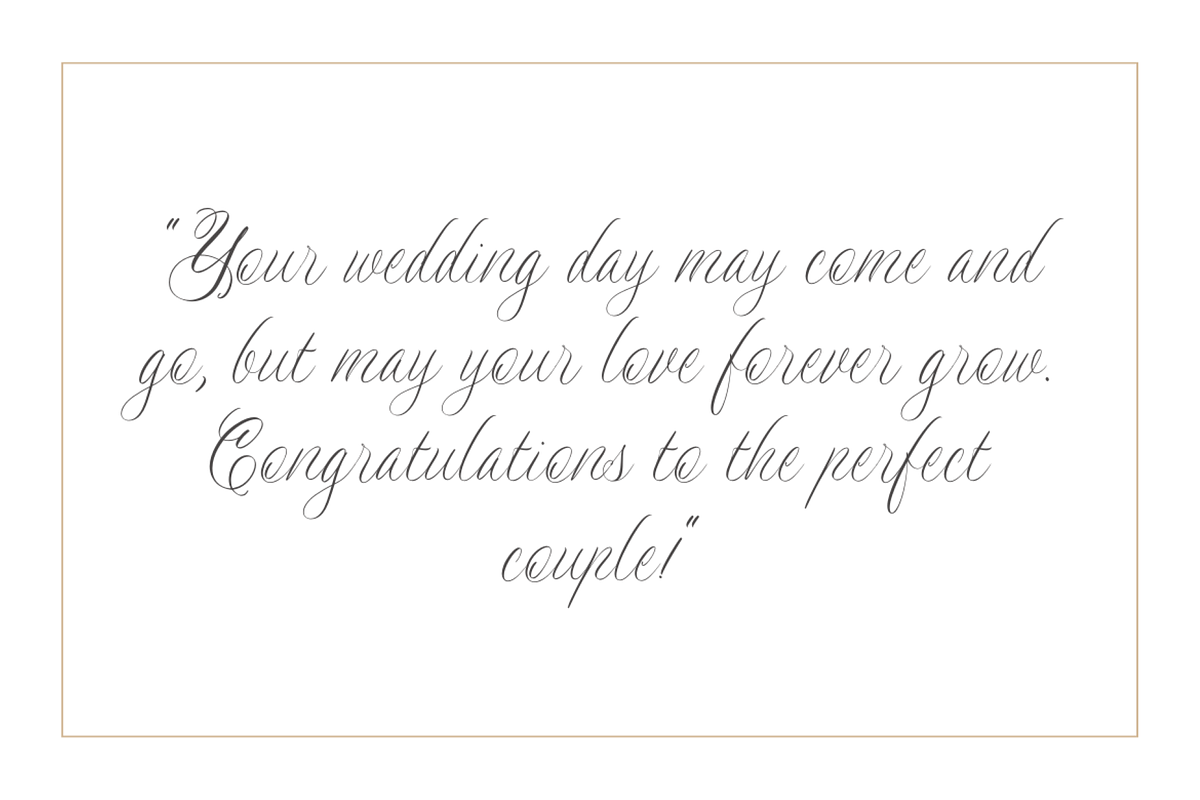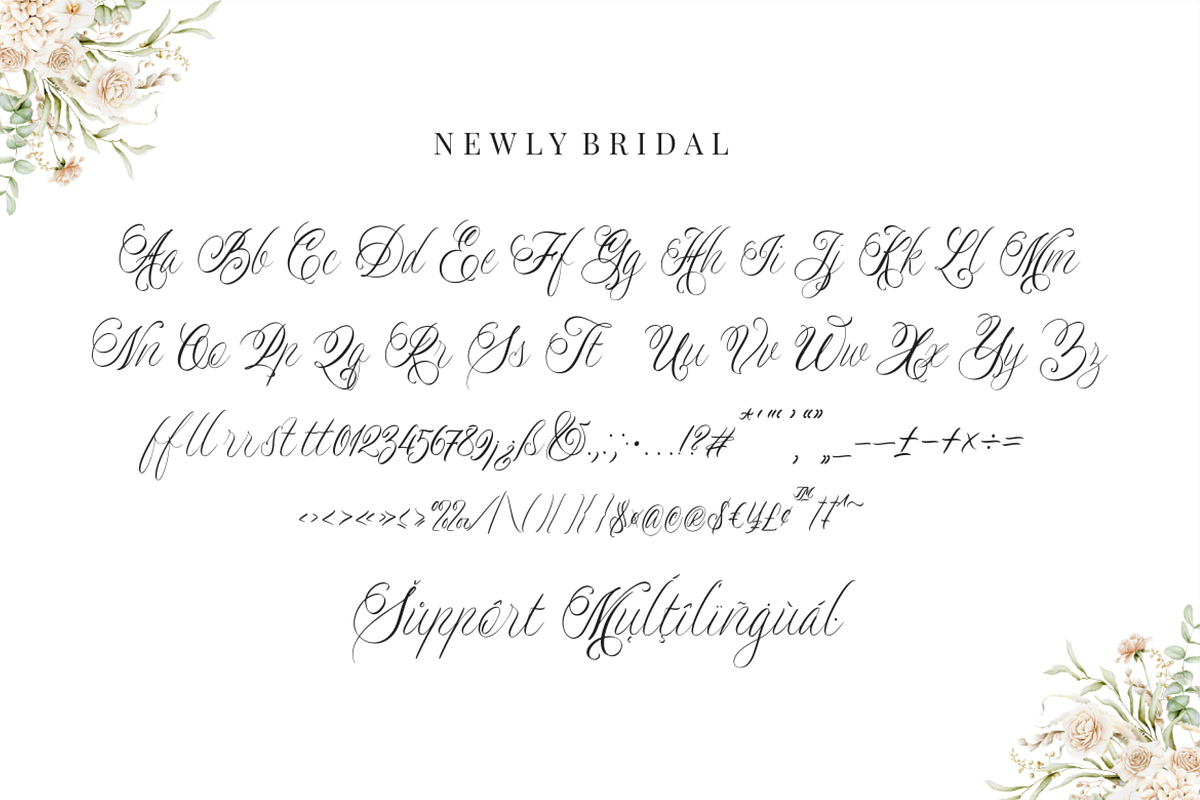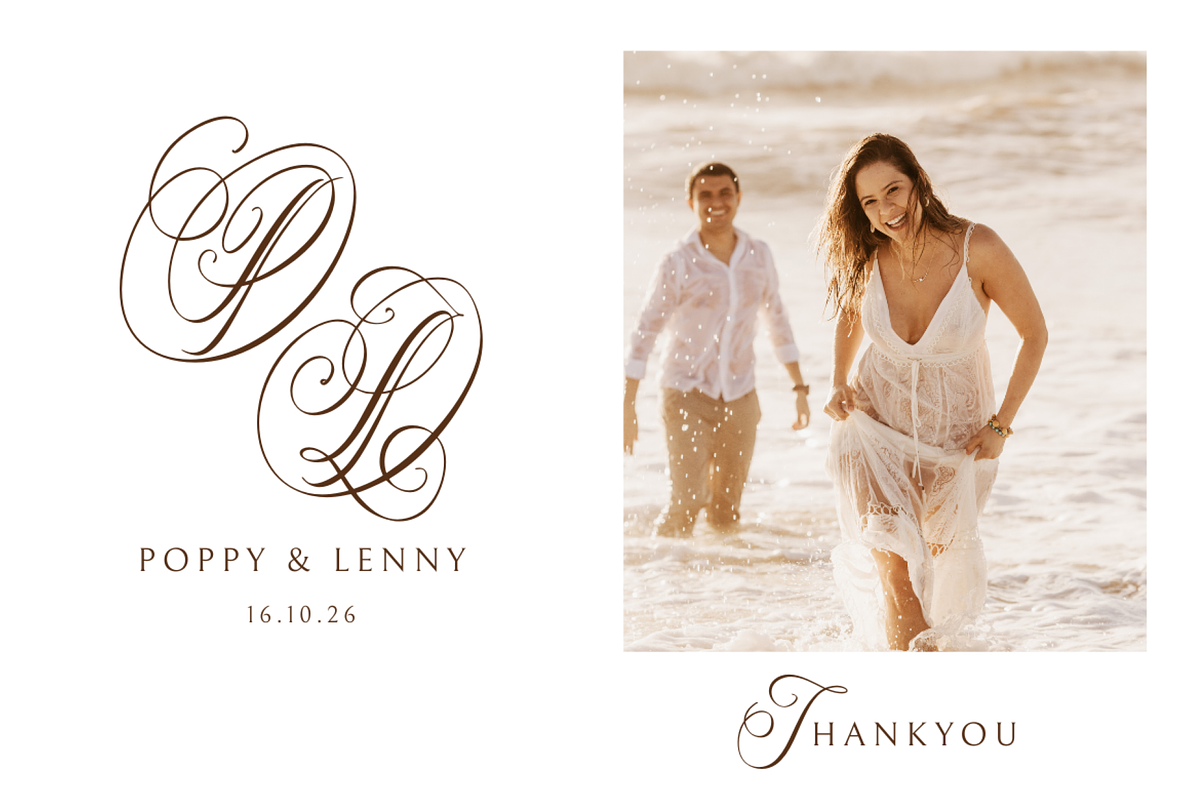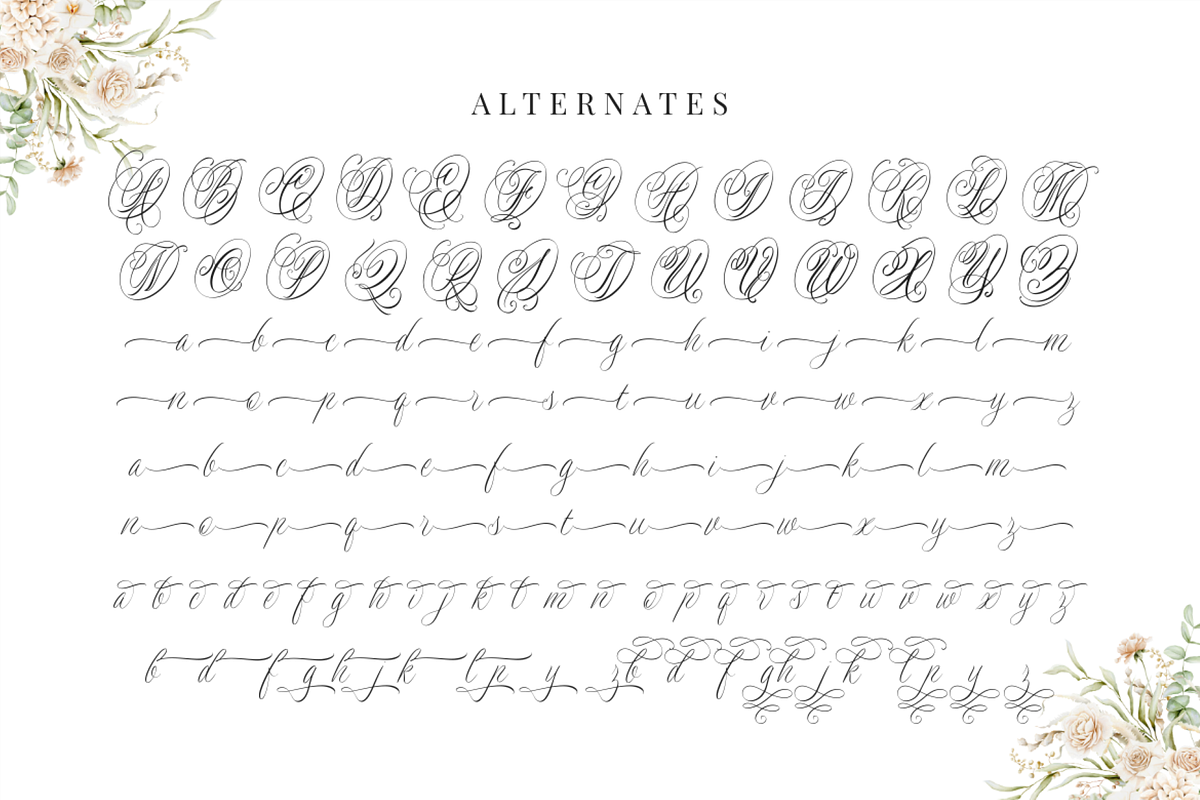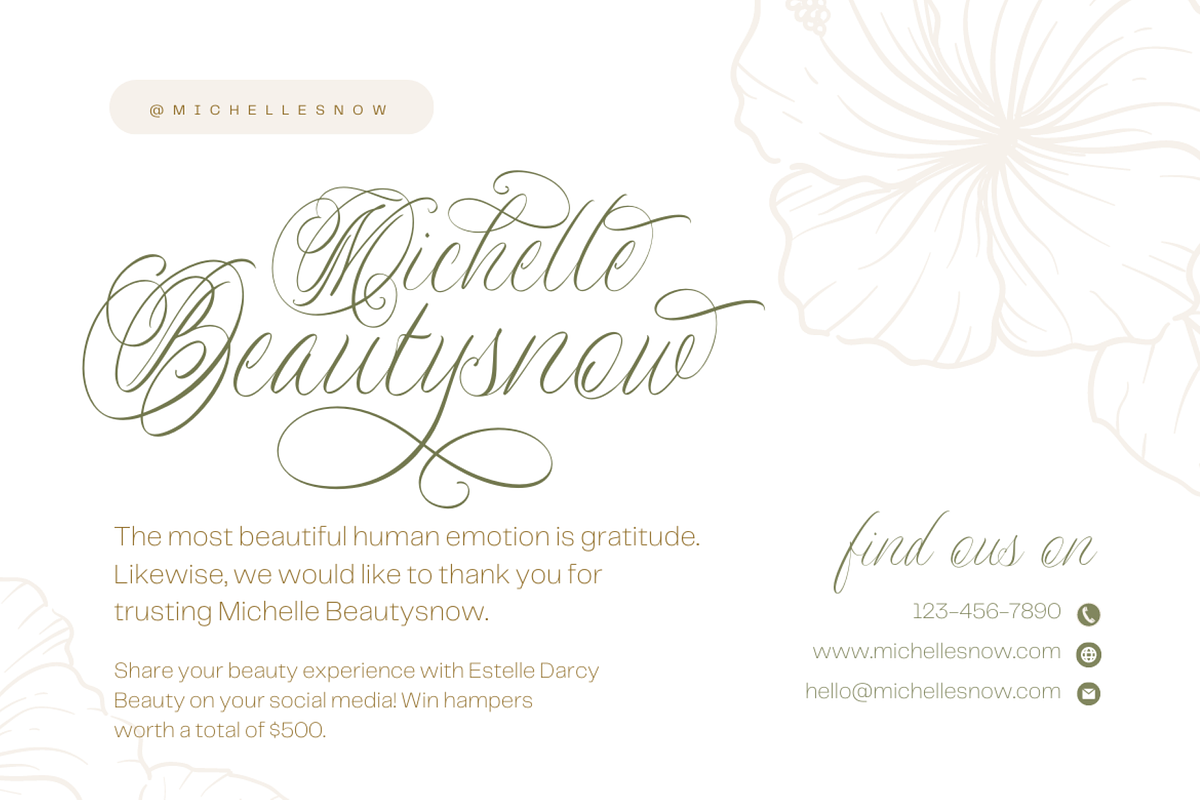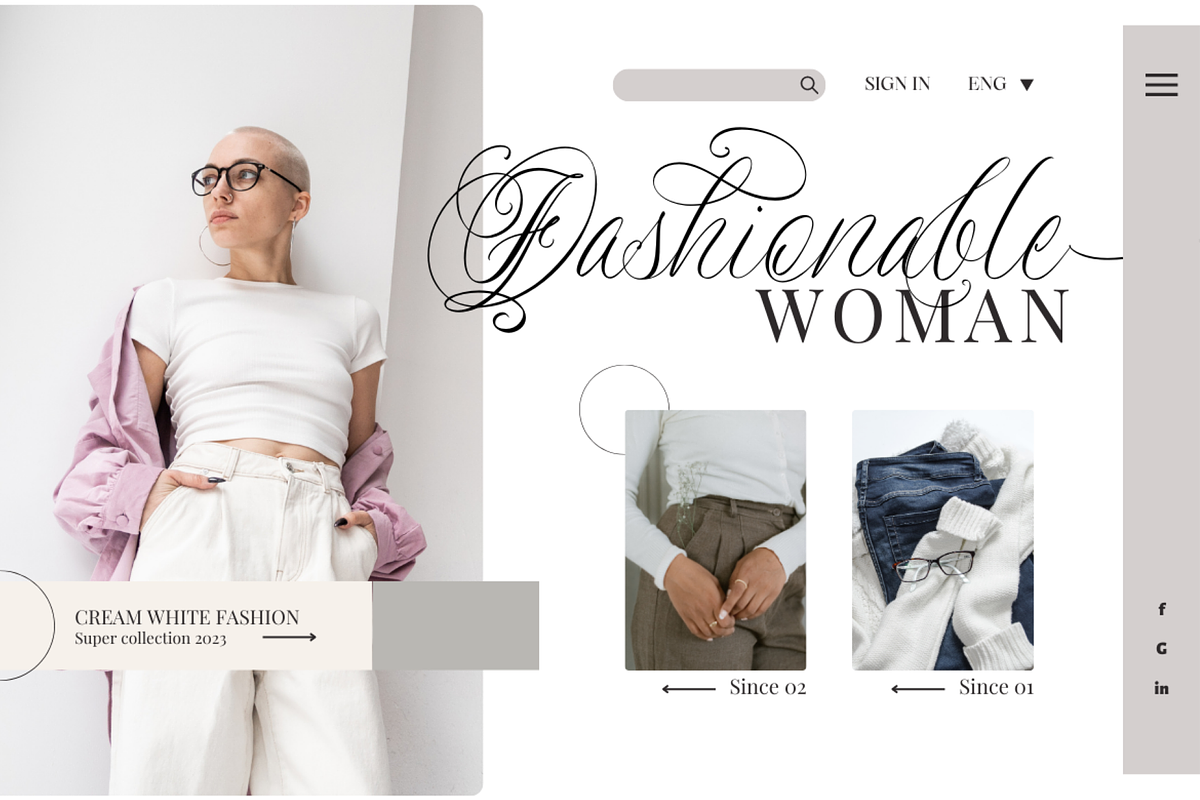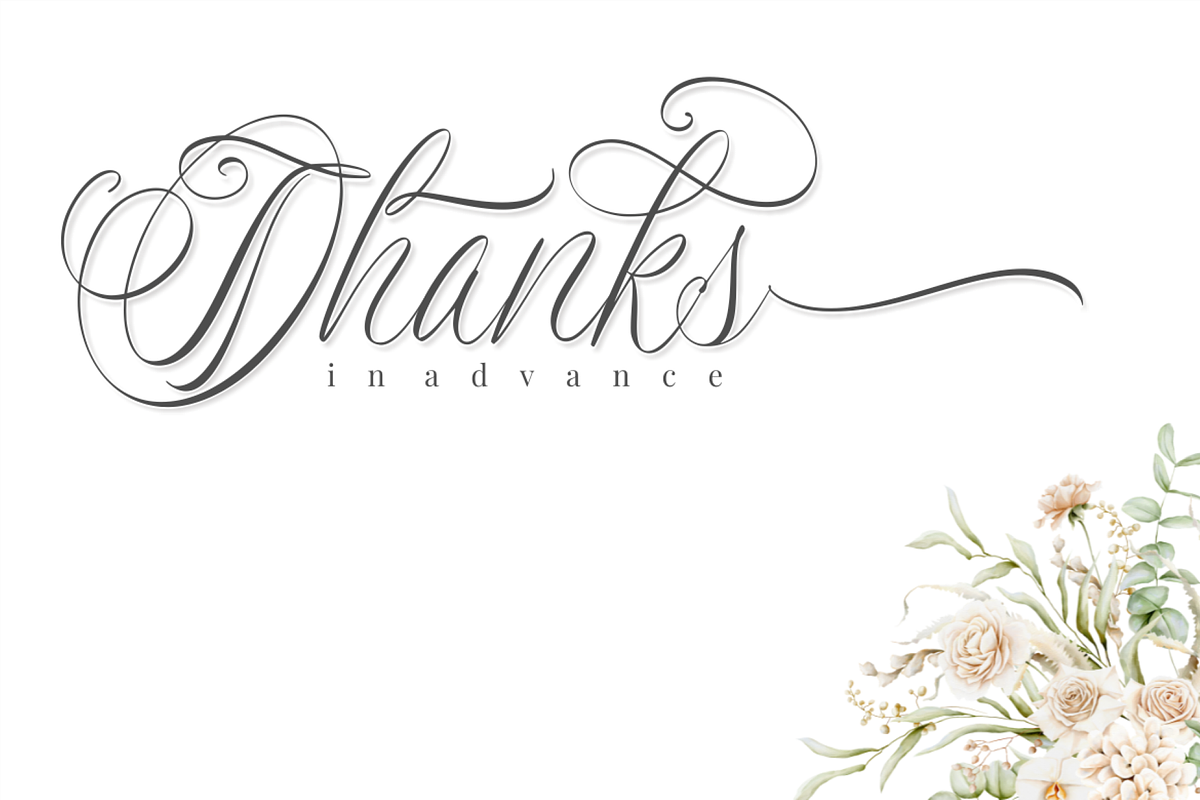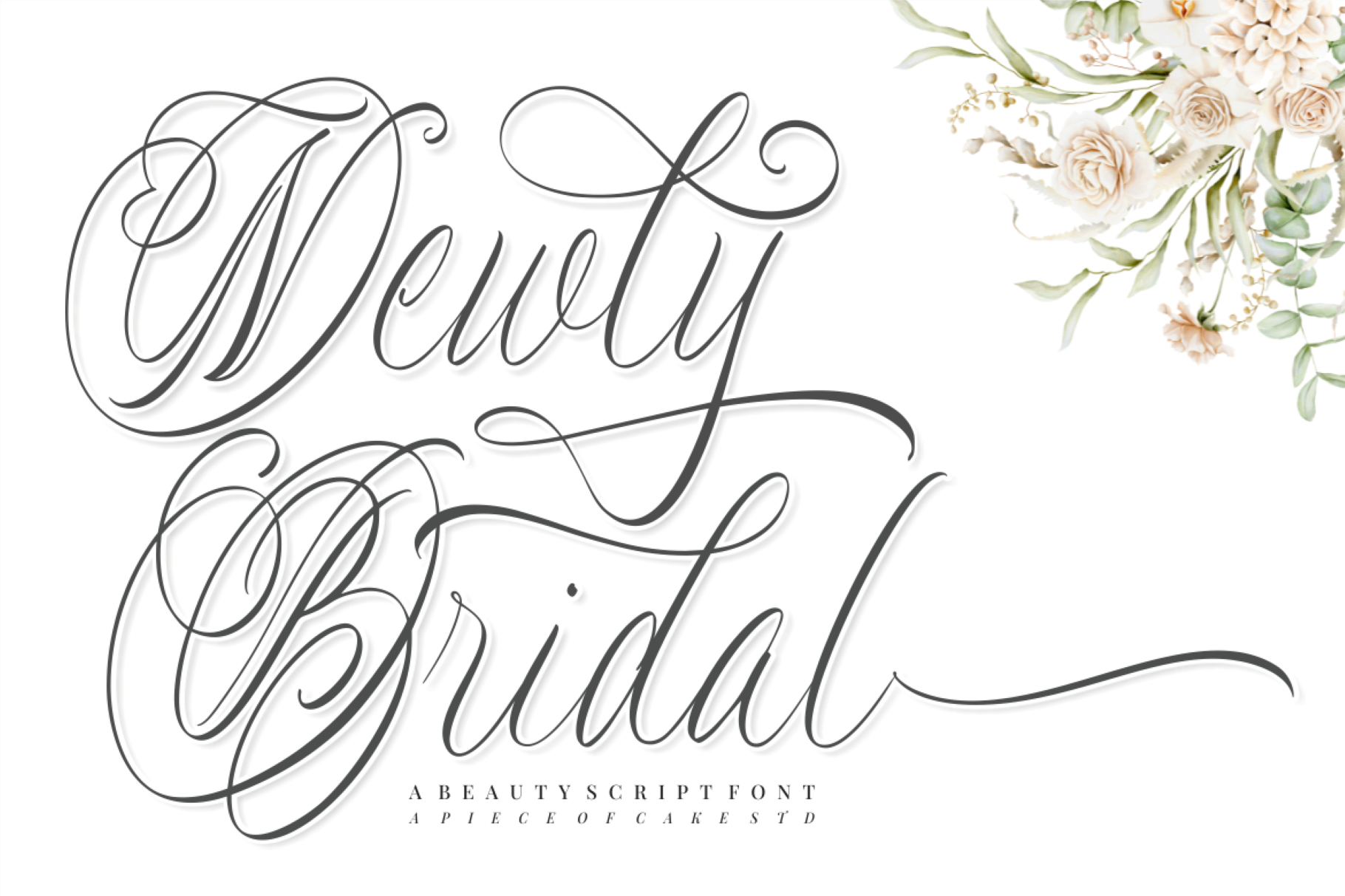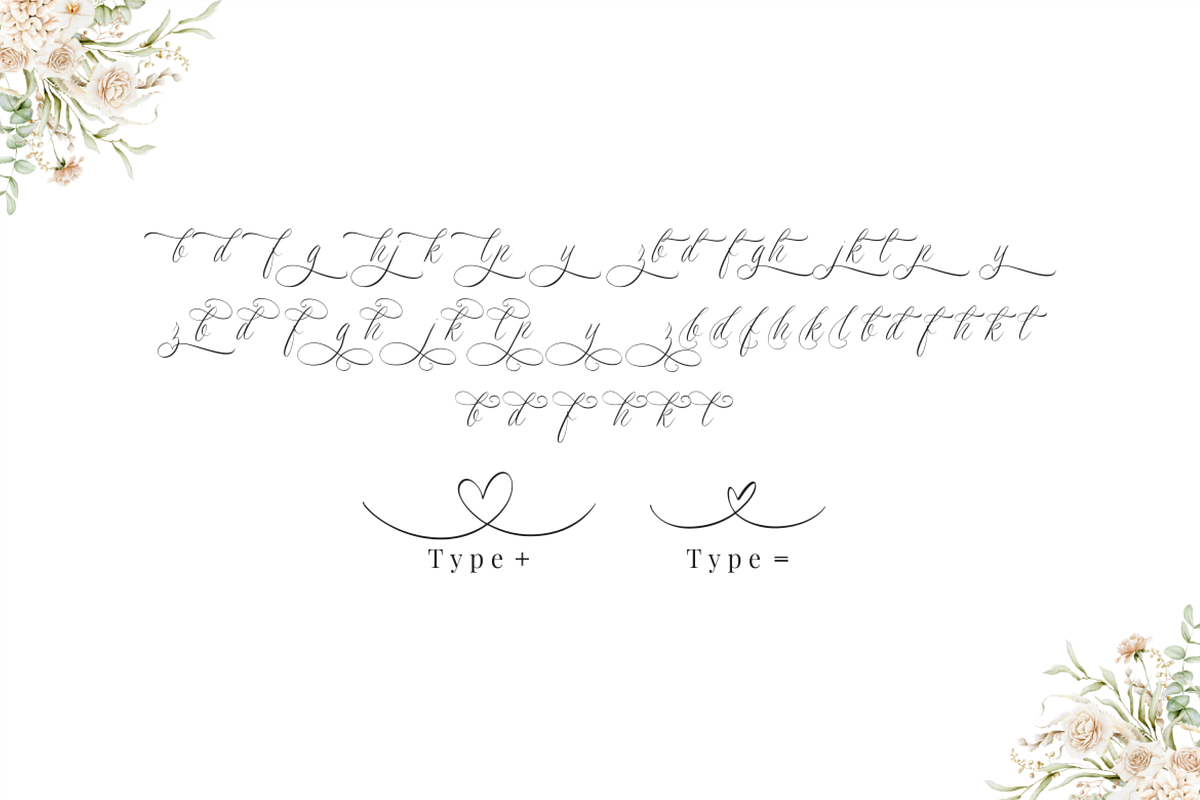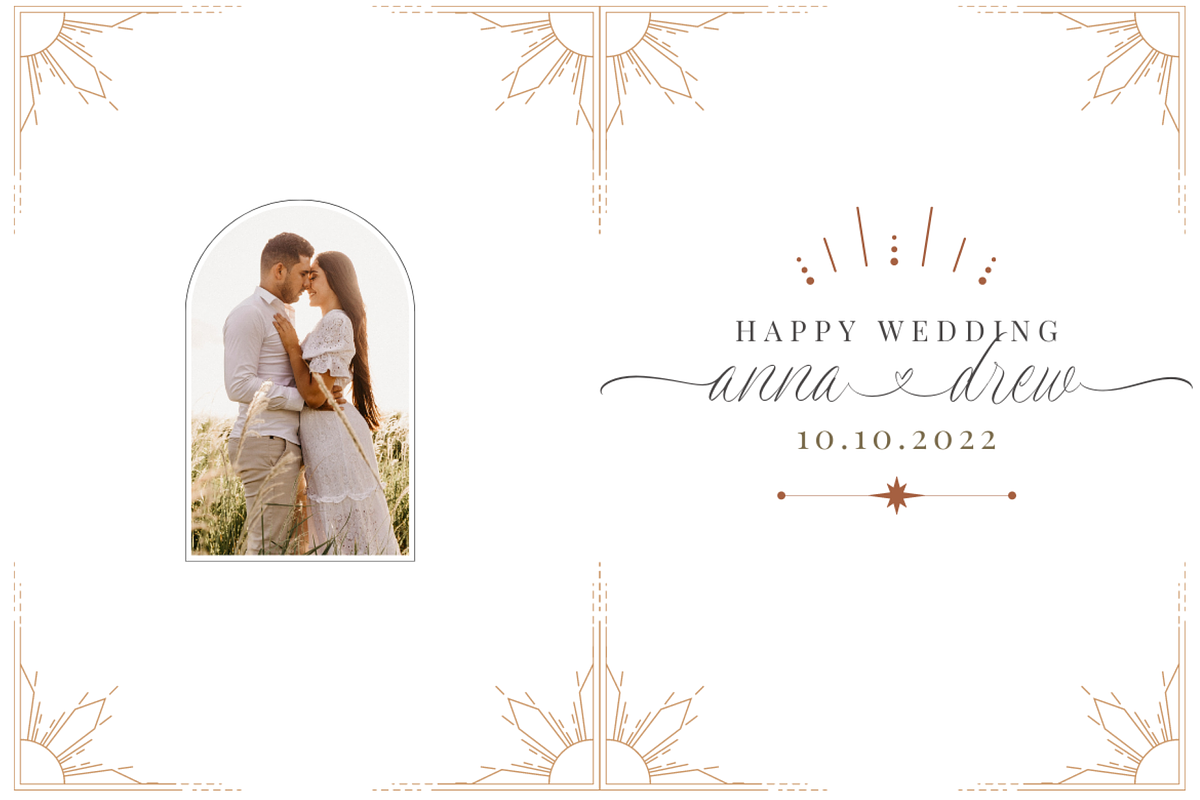
Newly Bridal - A Wedding Font
Introducing, Newly Bridal is a lovely script font suitable for your design project needs, such as; wedding themes, valentine’s themes, social media posts, quotes, overlays on images, tagline logos, posters, print needs, website banners, and more.
- A set of uppercase and lowercase glyphs
- Number, symbol, and punctuation
- Alternates and middle connecting swash
Access middle Swashes by keyboard
- key plus ' + ' to feature middle swash 1
- key equal ' = ' to feature middle swash 2
For Example: type love+you